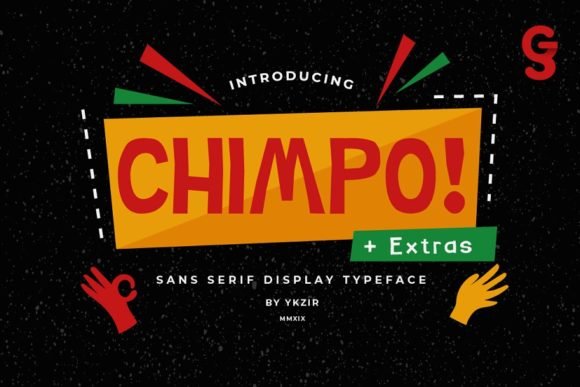
The Birth of a Unique Design: Unveiling the Chimpo Font
Have you ever found yourself surrounded by scissors, glue, and paper, completely lost in the world of paper cutting and crafting? That’s exactly where the creative spark behind the Chimpo Font began. As designers and artists, we’re always on the lookout for new inspiration, and for the creators of this font, it was in the intricate cuts and delicate details of paper art that they found their muse.
The result is a fun and versatile display font that draws inspiration from vintage posters and the world of paper cutting. With its unique blend of elegance and playfulness, the Chimpo Font is a valuable addition to any designer’s toolkit, offering endless possibilities for creative expression.
Chimpo Font Key Features
- Font Family: Chimpo Font is a unique, custom-designed font family, offering a range of styles and weights.
- Character Set: Chimpo Font includes a comprehensive set of characters, including uppercase and lowercase letters, numbers, and special characters.
- Unique Characteristics: This font features a distinctive, hand-drawn aesthetic with intricate details and subtle texture, giving it a unique, human touch.
Chimpo Font Review
As a designer, I was excited to try out the Chimpo Font, and I have to say, it has some unique qualities that caught my attention. ✨ The font’s bold and playful personality makes it perfect for creating eye-catching headlines and titles. The rounded edges and smooth curves give it a friendly and approachable feel, making it suitable for various design projects, from food branding to children’s products.
One of the standout features of Chimpo Font is its versatility. ✨ It comes in multiple weights and styles, allowing designers to experiment with different combinations to achieve the desired look. The font’s scalability is also impressive, looking great in both small and large sizes.
What Doesn’t Work
- ⚠️ Limited language support: Chimpo Font primarily supports Latin-based languages, which might be a limitation for designers working on international projects.
- ⚠️ Not suitable for body text: While Chimpo Font excels in headlines and titles, its readability suffers in larger blocks of text, making it less ideal for body text or long paragraphs.
Overall, Chimpo Font is a great addition to any designer’s toolkit, particularly for projects that require a bold and playful touch. While it has its limitations, its versatility and unique personality make it a worthwhile investment for designers looking to add some flair to their work.
Common Use Cases for Chimpo Font
Chimpo font is commonly used for:
– Headlines and titles due to its bold and playful style.
– Social media graphics and posts due to its attention-grabbing nature.
– Branding and logos due to its unique and distinctive style.
Getting the Most Out of Chimpo Font
To get the most out of Chimpo font, try combining it with other fonts and design elements to create a unique and eye-catching look. Experiment with different font sizes, colors, and styles to find the perfect balance for your design.
Alternatives to Chimpo Font
Playfair Display is a luxurious serif font perfect for high-end branding, magazines, and advertising. It features elegant lines and ornate details, making it suitable for formal and sophisticated designs. Compared to Chimpo Font, Playfair Display has a more refined and classical look, whereas Chimpo Font has a more playful and distressed feel.